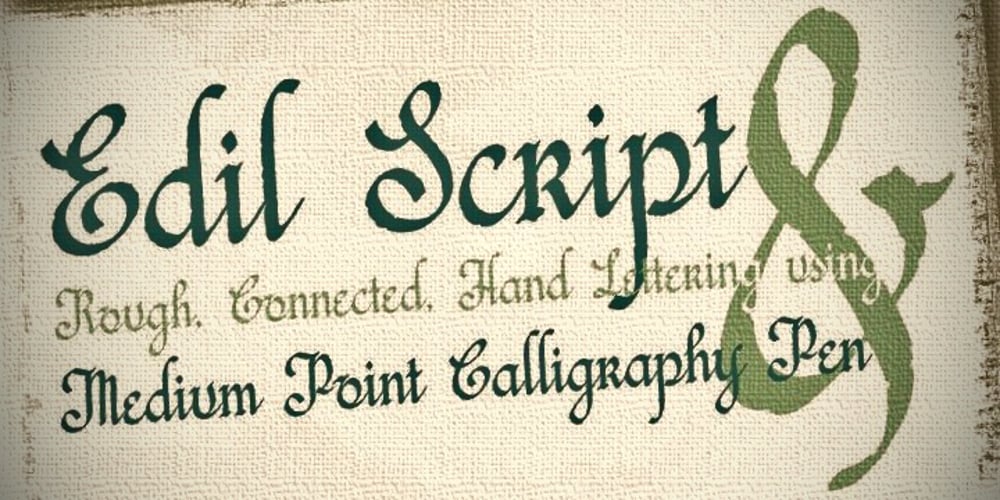
Edil Script Font Family was designed by Azelea Rodgers and published by aRc. Edil Script contains 1 styles and family package options. Edil Script is a hand-drawn connected script with the use of a Medium Point Calligraphy Pen on a textured paper. This typeface has 380+ glyphs with great legibility and it is available in TrueType Font. Edil Script is a tribute to my father who taught me how to draw at a very young age and the person behind my passion to draw.